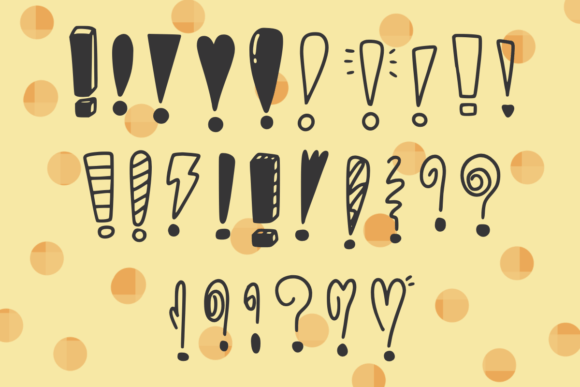
Exclamation Mark Font
ABOUT EXCLAMATION MARK FONT
“Exclamation Mark” is a playful and unique dingbats font that adds a fun twist to your designs. This font consists entirely of exclamation marks, making it a bold and attention-grabbing choice. Whether you’re creating posters, flyers, logos, or any other design project, “Exclamation Mark” will help make your message stand out.
The hand-drawn style of this font adds a touch of personality and creativity to your designs. It’s a versatile font that can be used in various contexts, such as emphasizing important information, conveying excitement or urgency, or simply adding a playful element to your artwork.
By incorporating “Exclamation Mark” into your creative ideas, you can add a unique and eye-catching element to your designs. Let this font inspire you to make a statement and grab the attention of your audience.